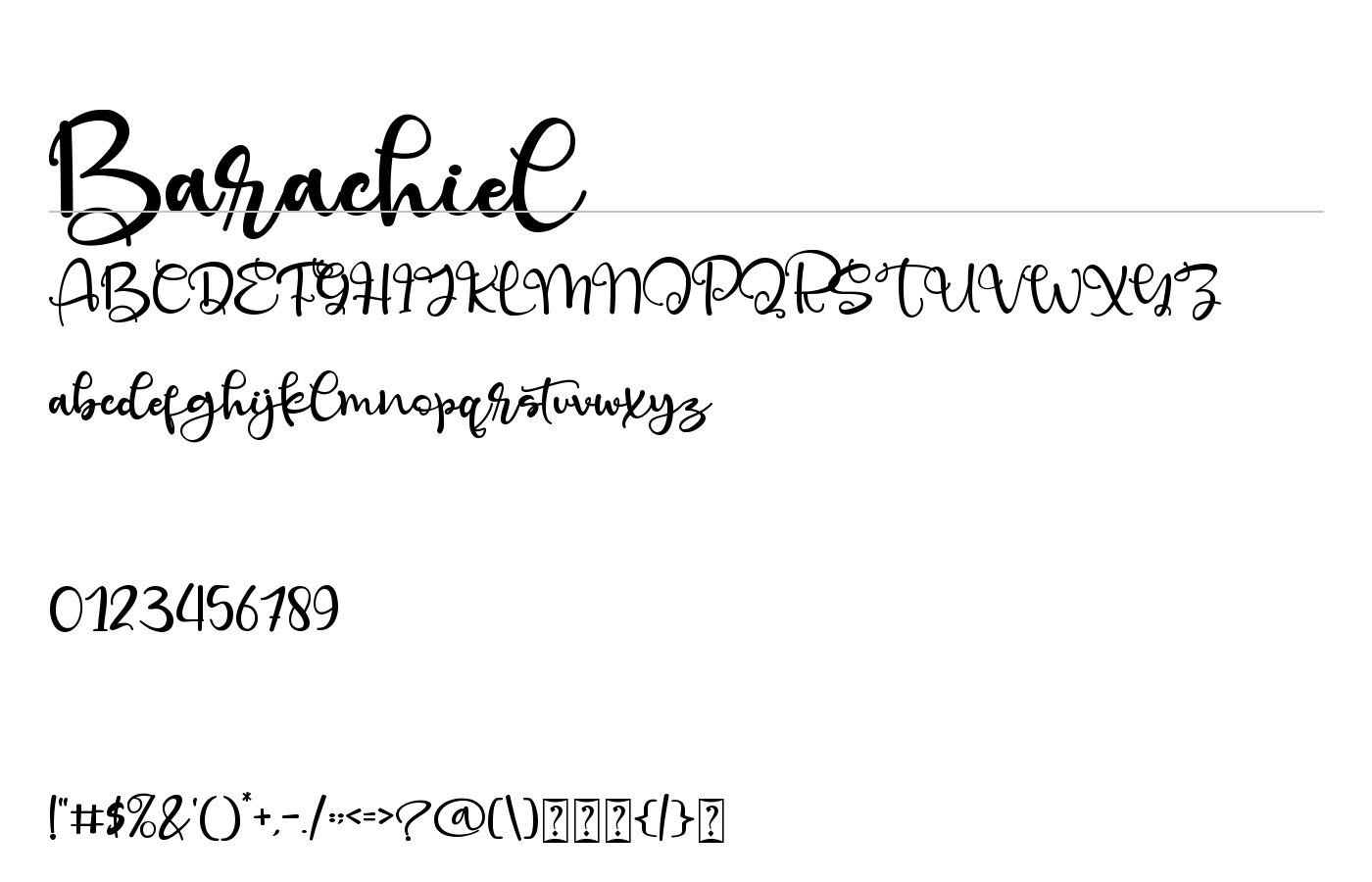
Barachiel is a playful and elegant script font featuring smooth, flowing strokes with a slightly whimsical touch. Its high x-height and fluid letterforms make it eye-catching and suitable for creative, friendly branding, invitations, and packaging. This handwritten style font adds a personal, artistic feel ideal for designs needing a charming and approachable look.
Barachiel Font
About Barachiel Font